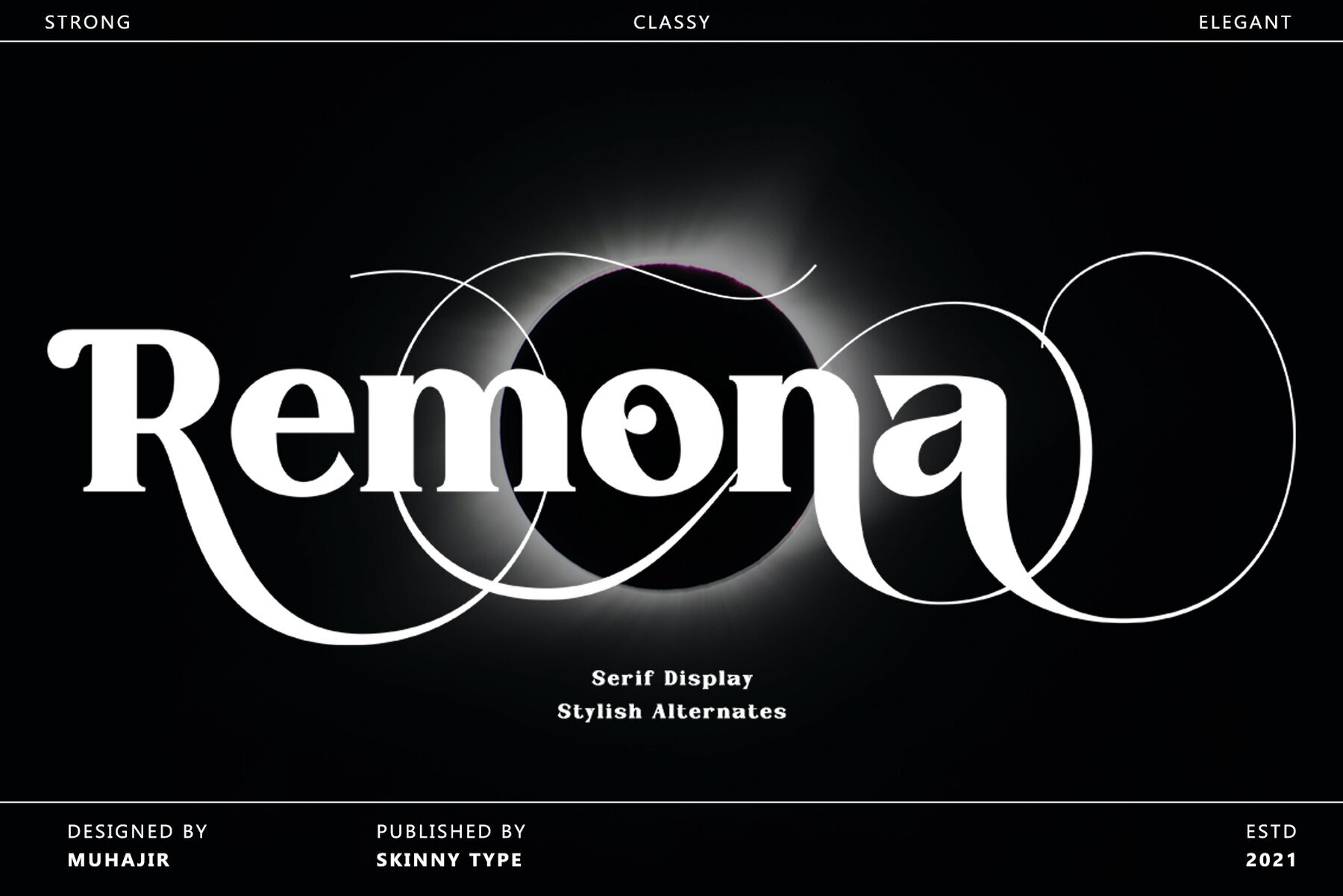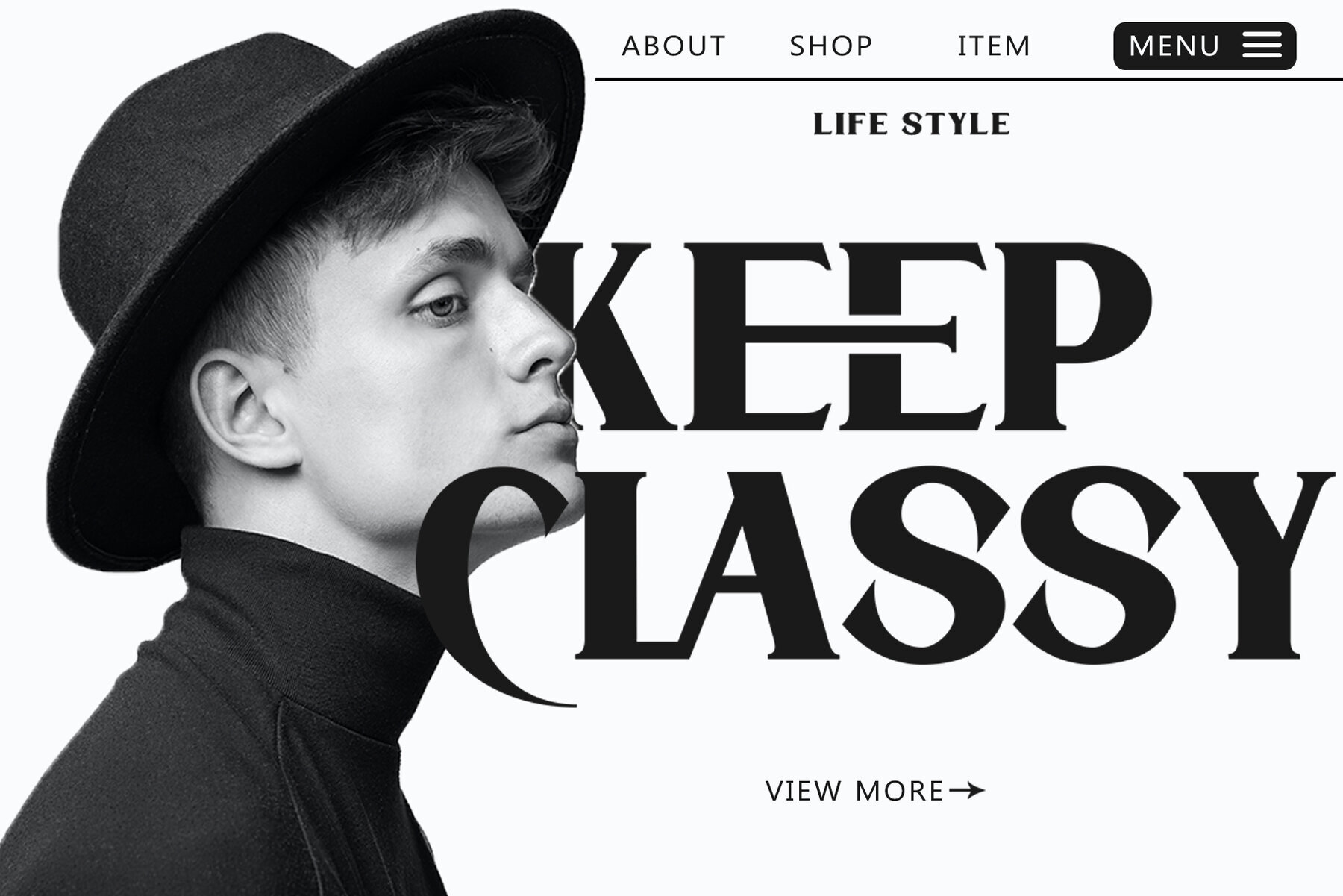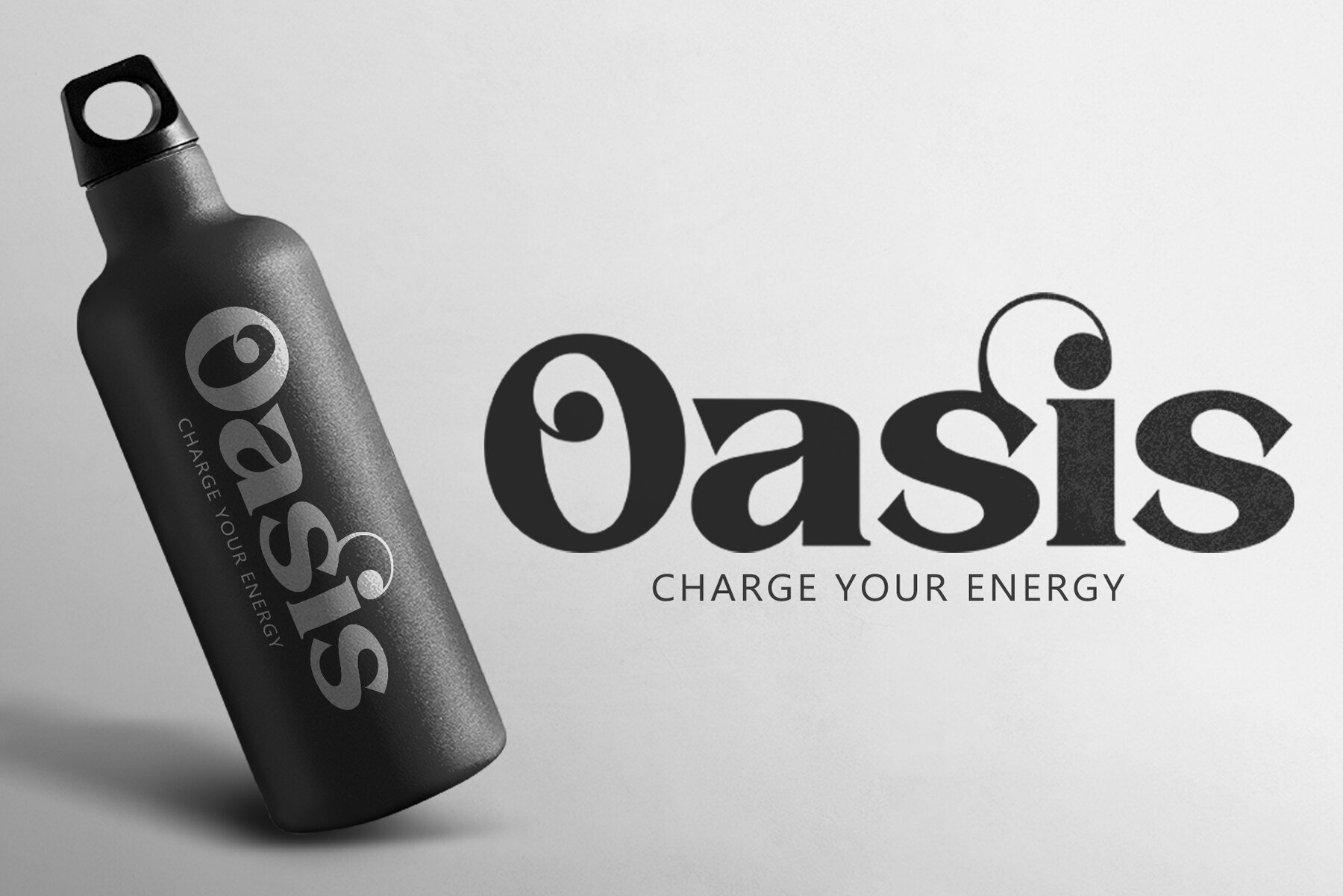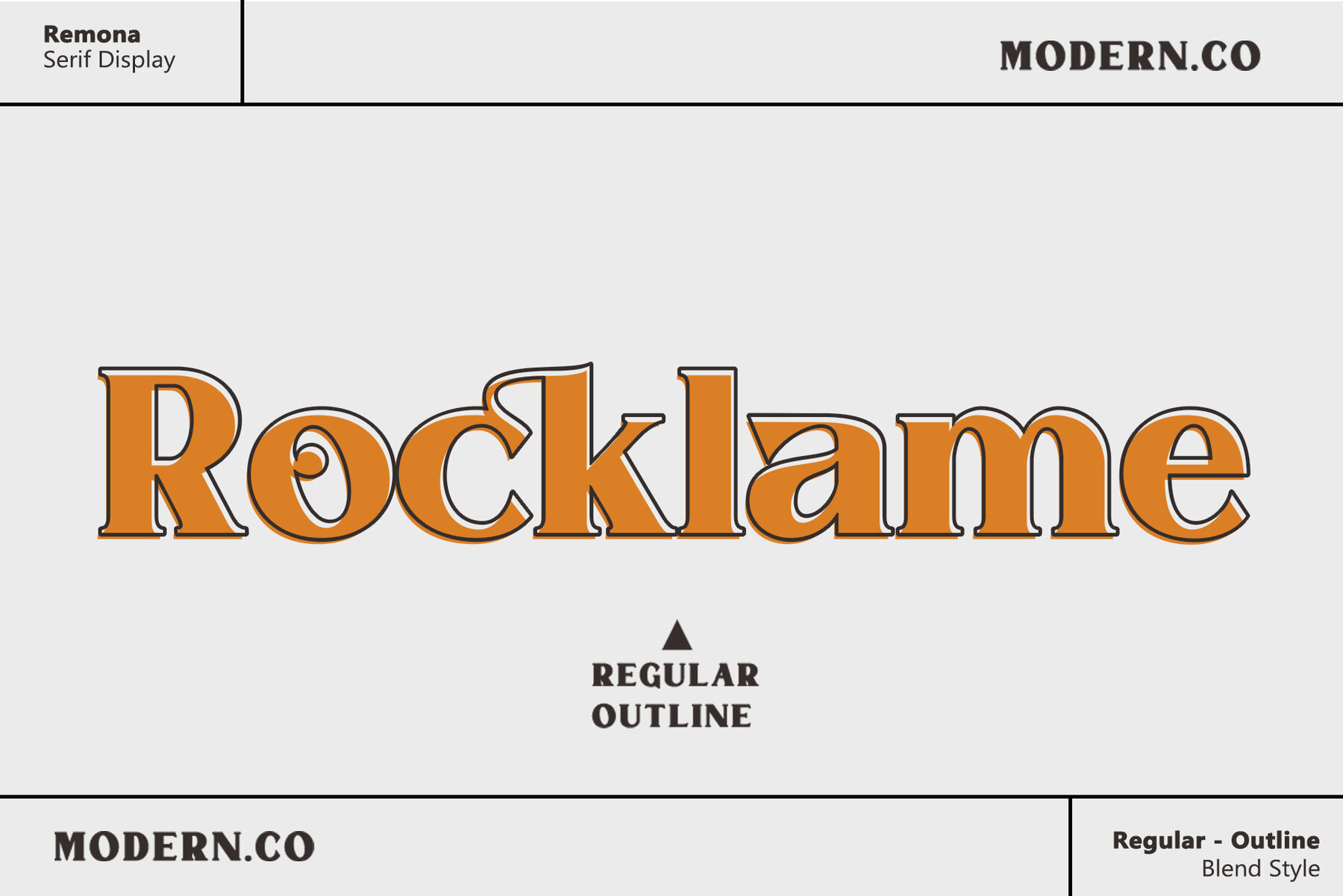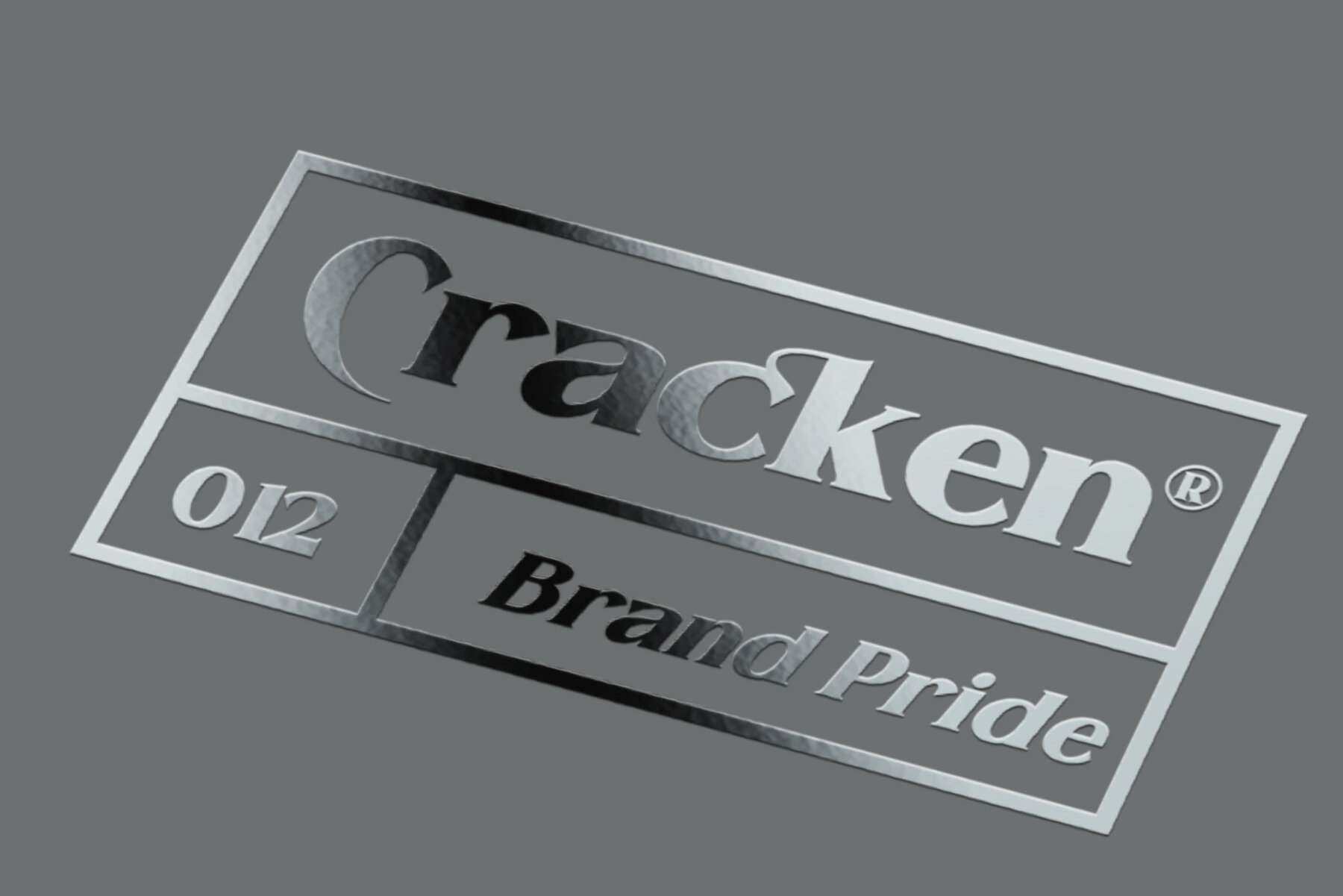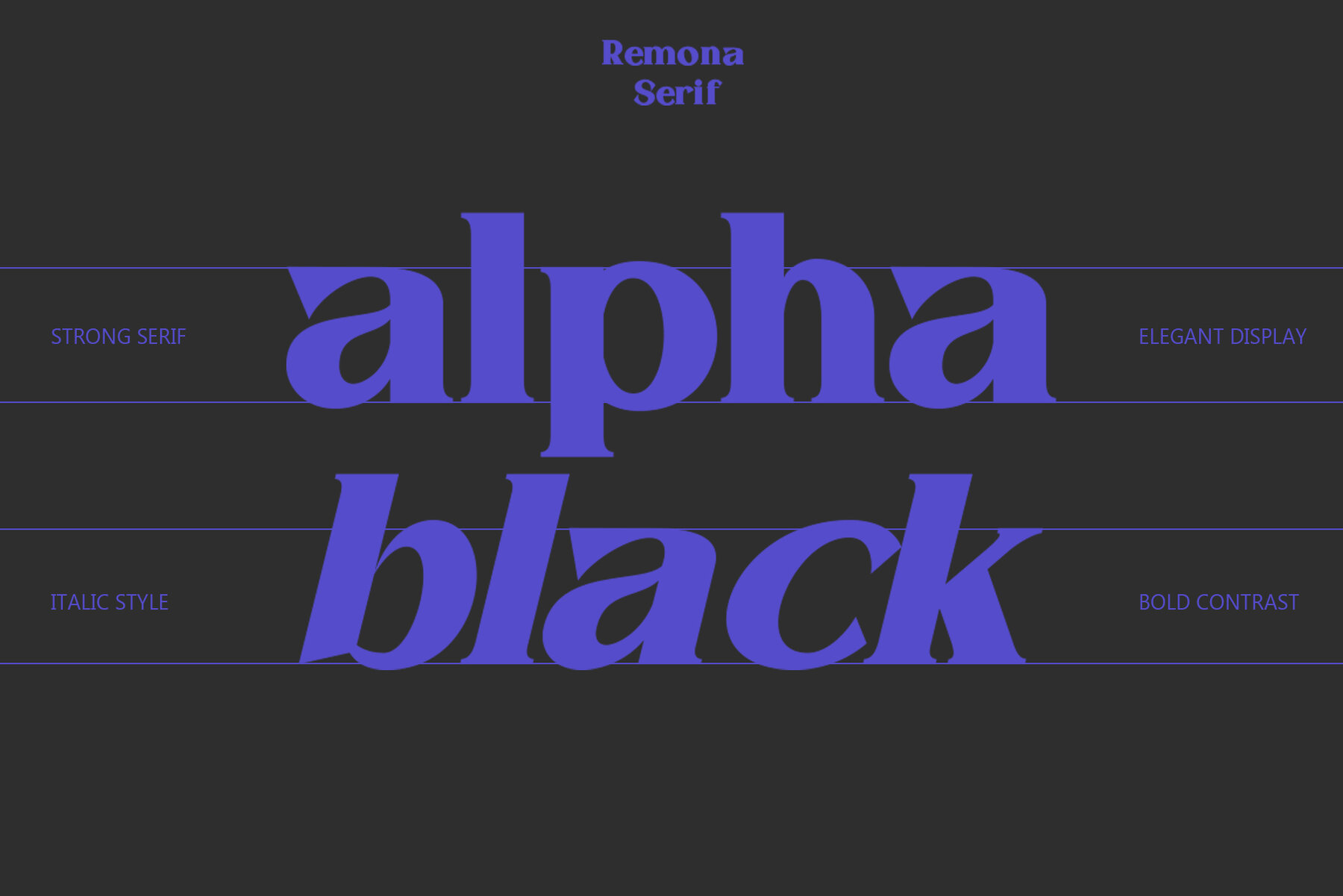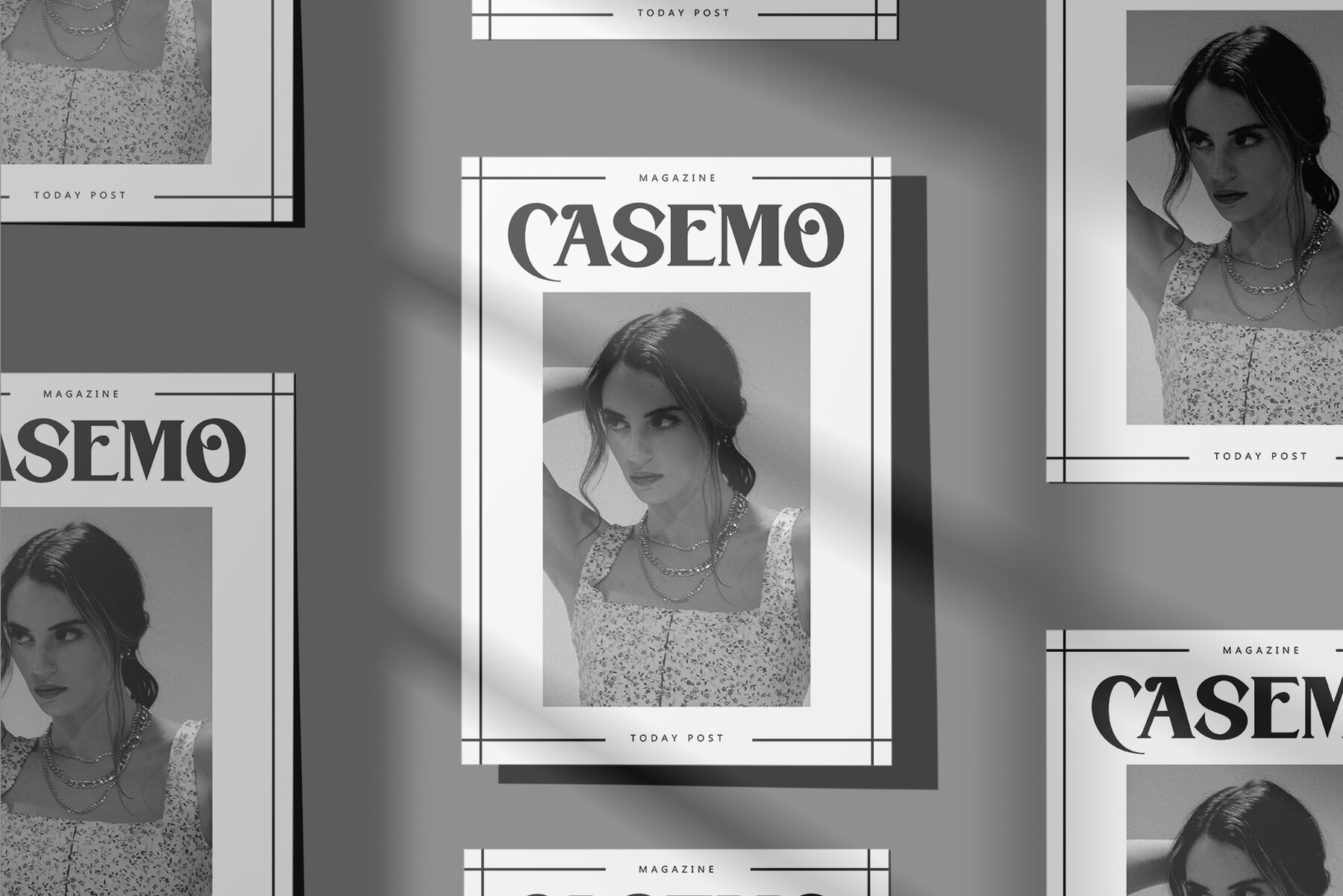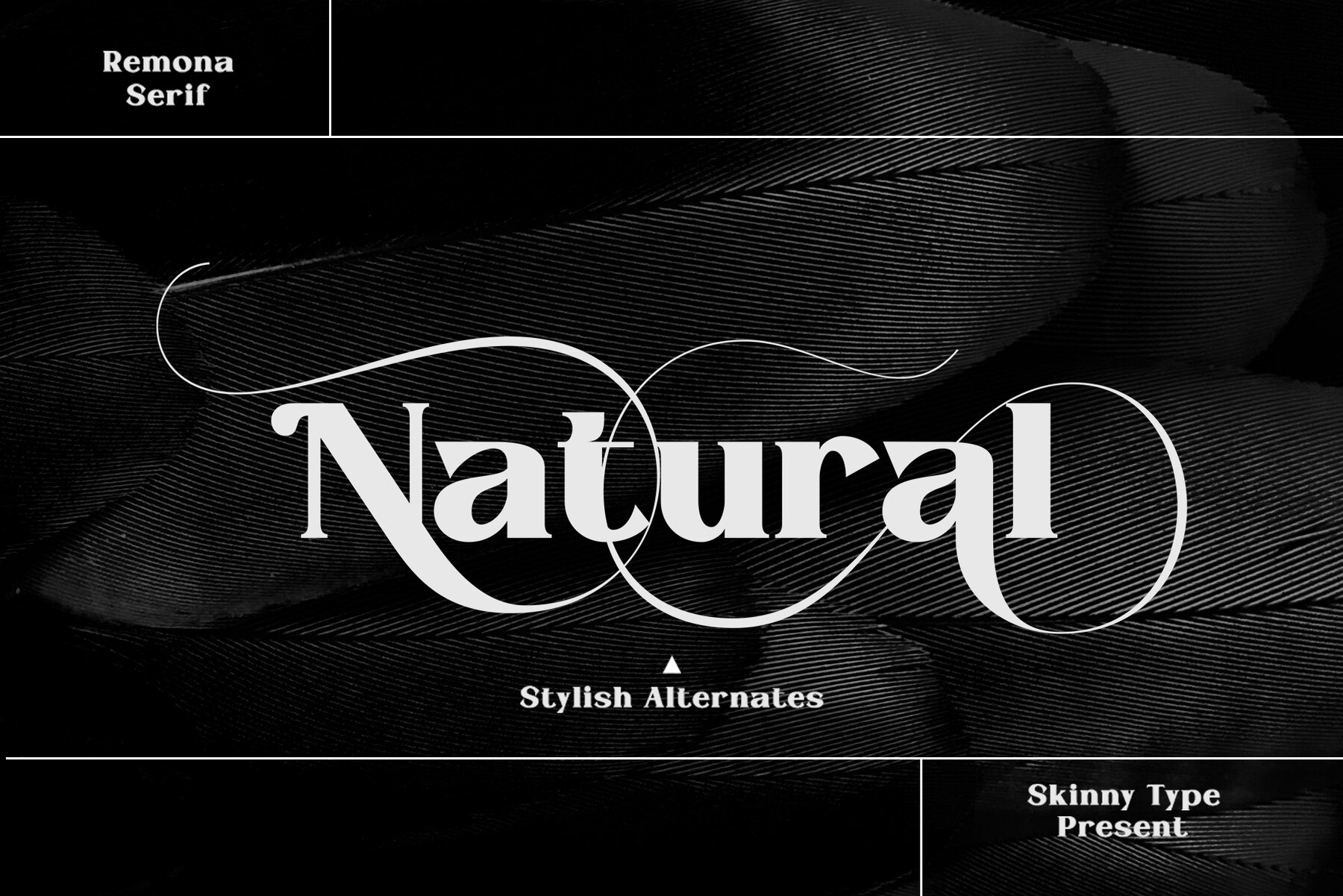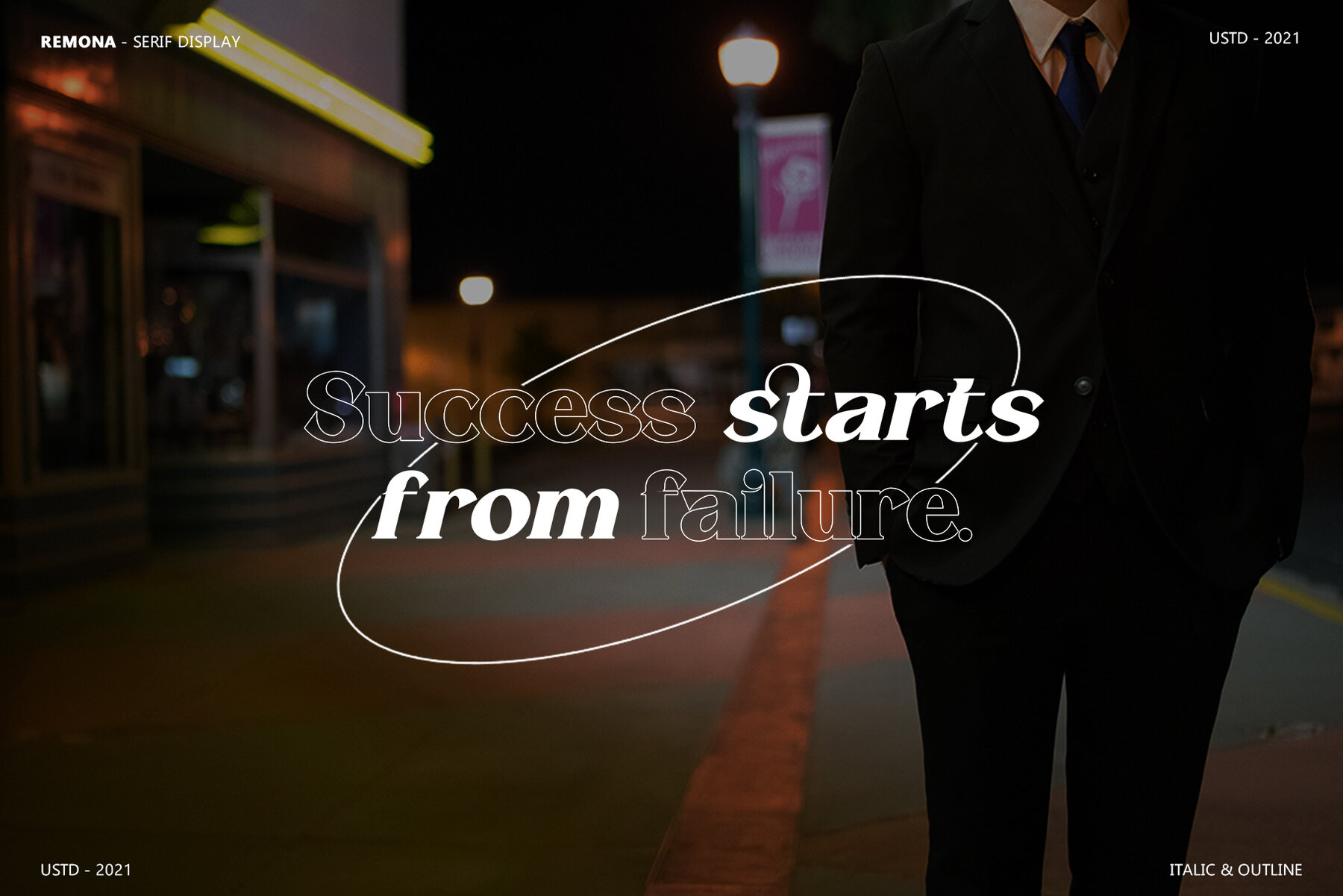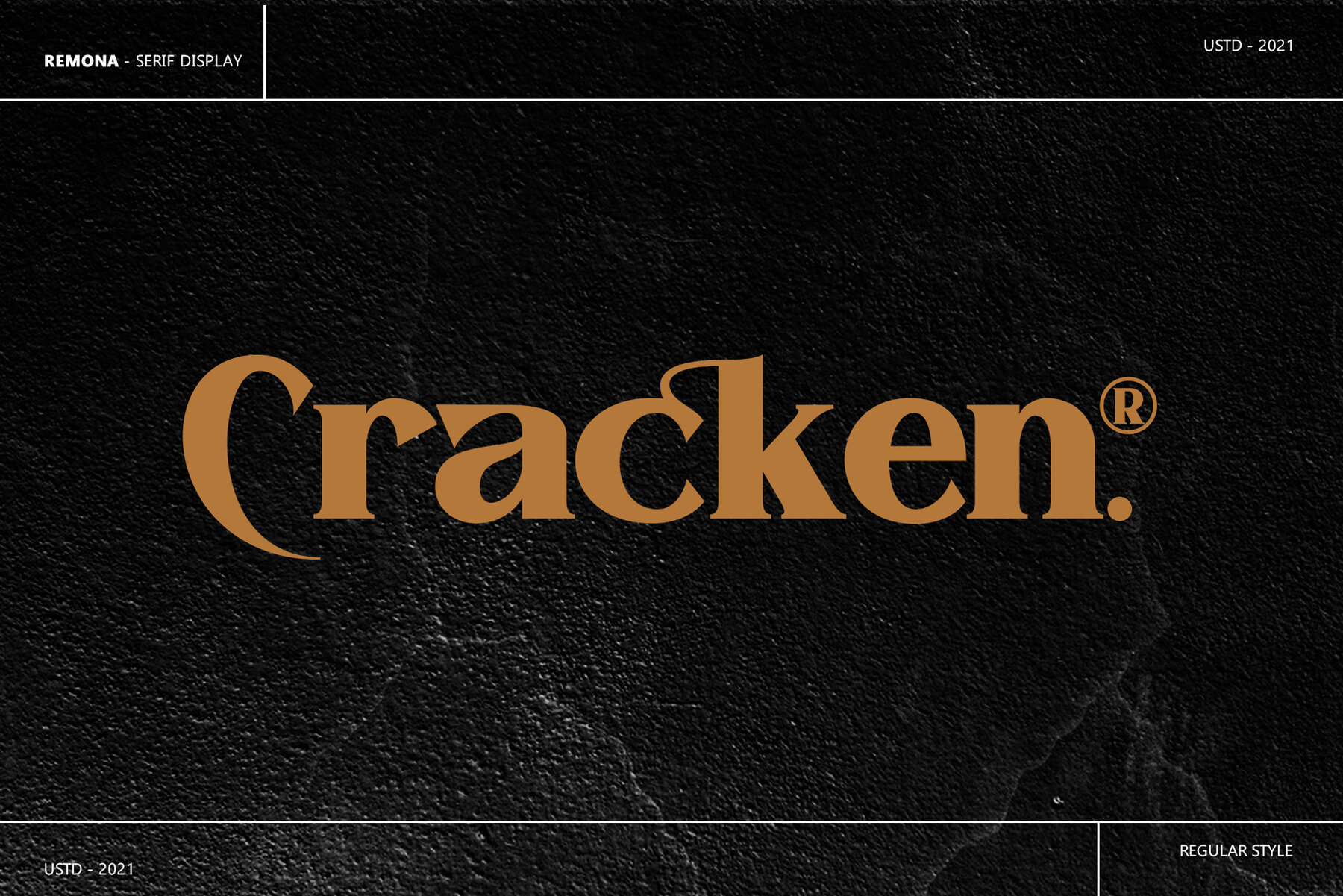
Remona Font
Remona is a confident serif typeface inspired by nature, exuding softness and natural expression. Its design is optimized for usability, balancing boldness and communicative beauty. This typeface supports fluid designs with its three styles: Regular, Italic, and Outline. The right slant enhances its aesthetic appeal, adding energy and a contemporary edge. Combining organic curves and soft repetition, Remona creates strong, harmonious types suitable for modern designs.
The type family excels in versatility, offering exceptional readability at both large and small sizes. This quality makes it ideal for various applications, from striking headlines to extended texts. Remona supports a wide range of languages and styles, featuring additional symbols, style alternatives, unique binding, and case-sensitive punctuation. Its comprehensive character set ensures stability and functionality, ready to tackle projects of any scale with confidence.